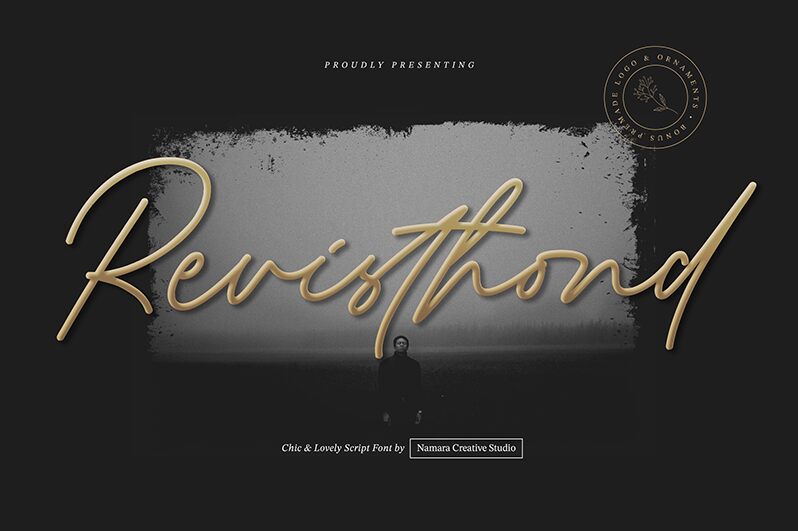
Revisthond Script
Revisthond Script, designed by Namara Creative, is a captivating handwritten font that adds a touch of elegance to any project. With its light weight, this font exudes grace and sophistication.
Its gentle curves and flowing strokes make it perfect for wedding invitations, greeting cards, and other romantic designs. Revisthond Script also lends itself well to branding projects seeking a unique and personal touch. Whether you're creating a logo for a boutique fashion line or crafting an eye-catching poster for an art exhibit, this enchanting font will leave a lasting impression on your audience.